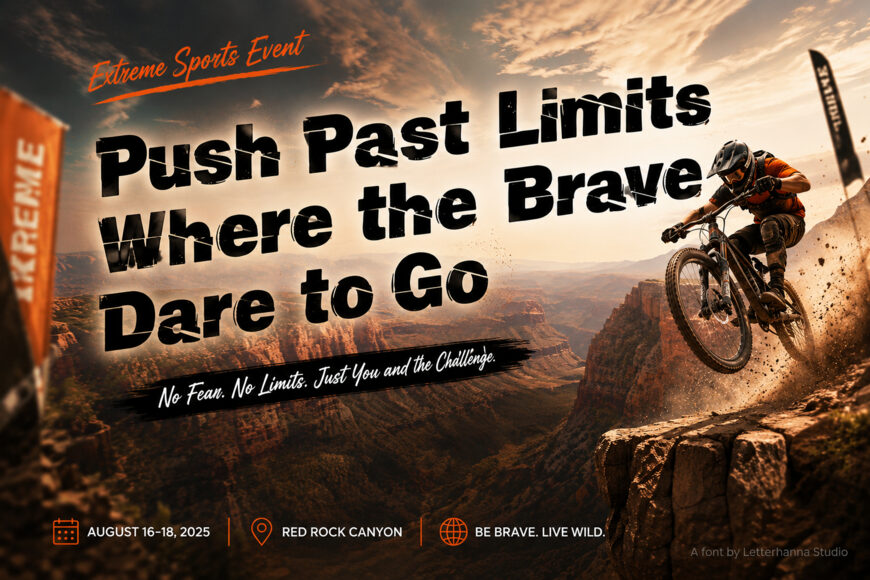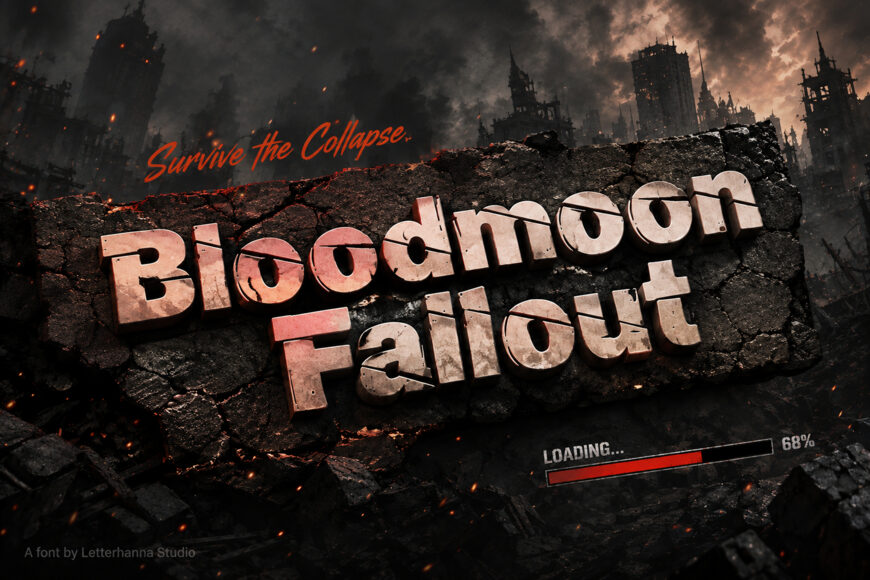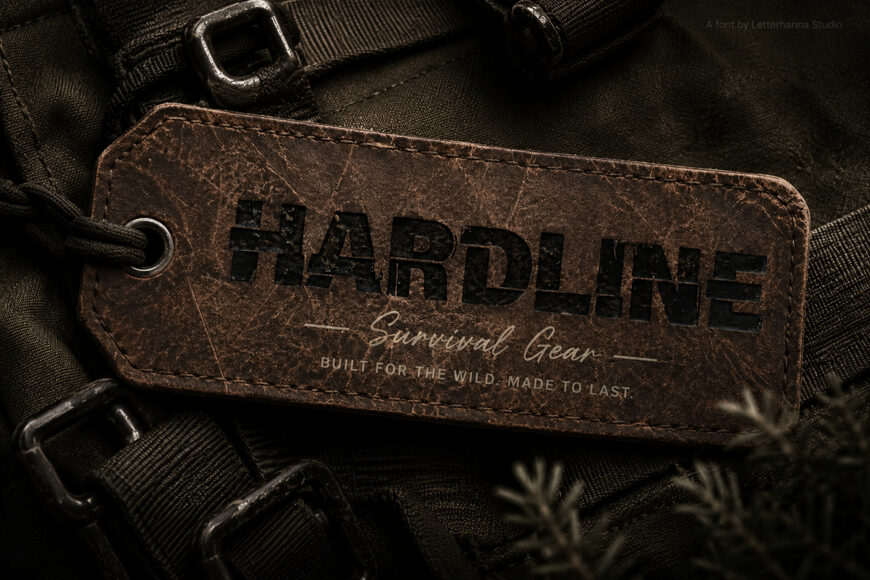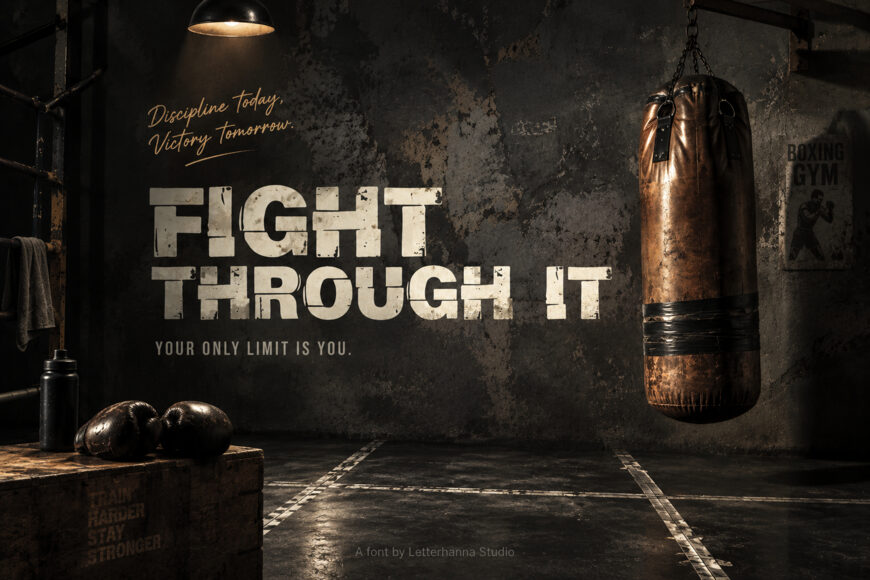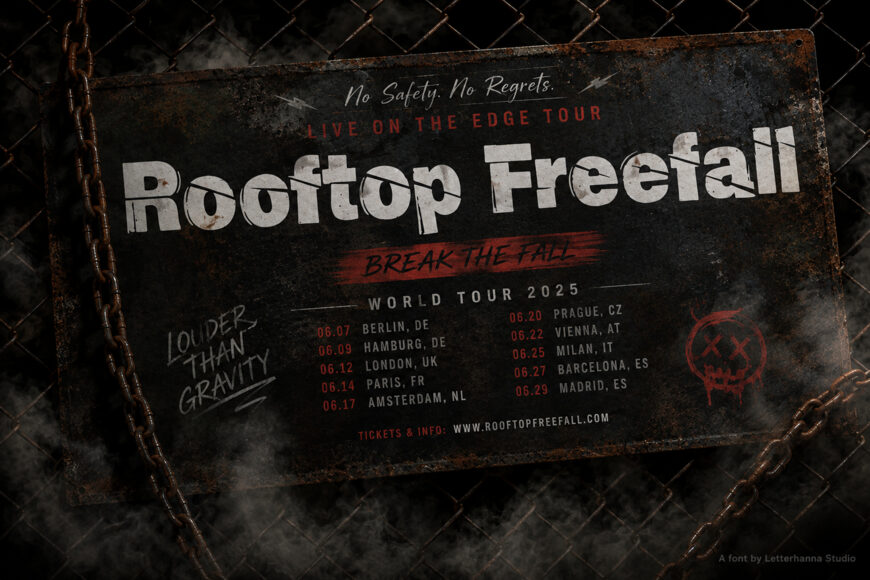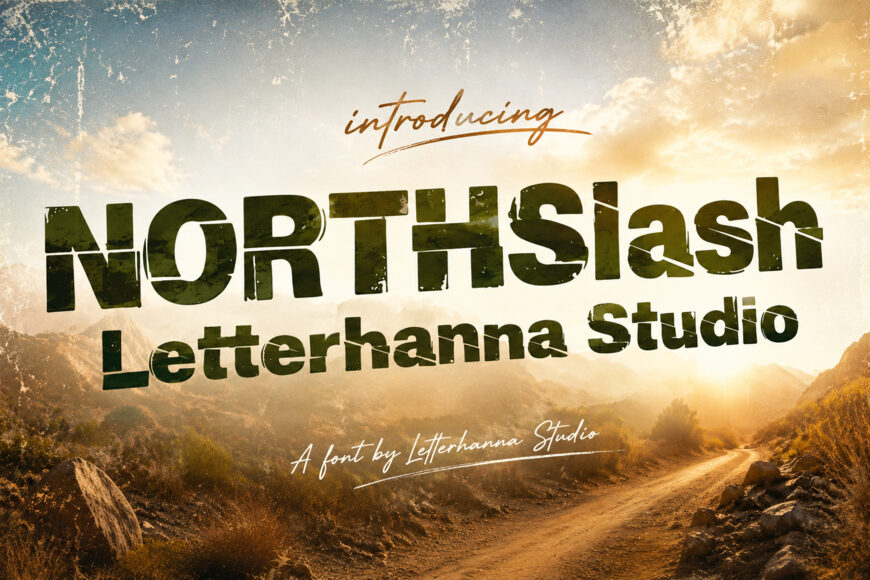
Northslash Font
Northslash is a bold distressed typeface inspired by worn surfaces, punk graphics, street culture, and weathered signage. Thick letterforms are broken by jagged diagonal cracks and rough details, creating a powerful, rebellious appearance.
Its consistent grunge treatment makes it ideal for metal branding, streetwear, music posters, horror titles, extreme sports, tattoo graphics, gaming artwork, and rugged packaging. Northslash delivers a raw, damaged aesthetic designed for headlines that demand immediate attention.